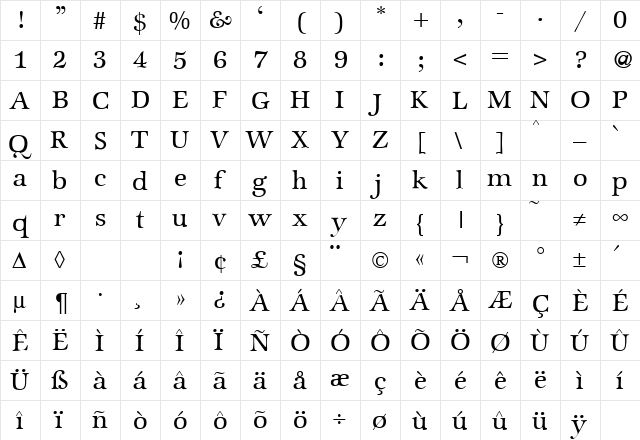
ZabriskieInternational Regular
Design Context for ZabriskieInternational Typeface
ZabriskieInternational offers clean, dependable letterforms without strong stylistic allegiance, making it a practical choice for designers who need flexibility.